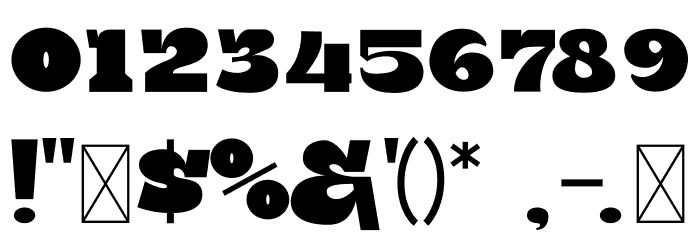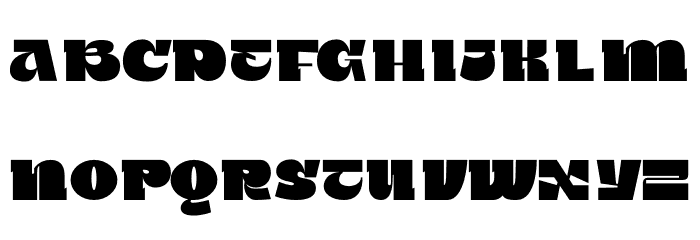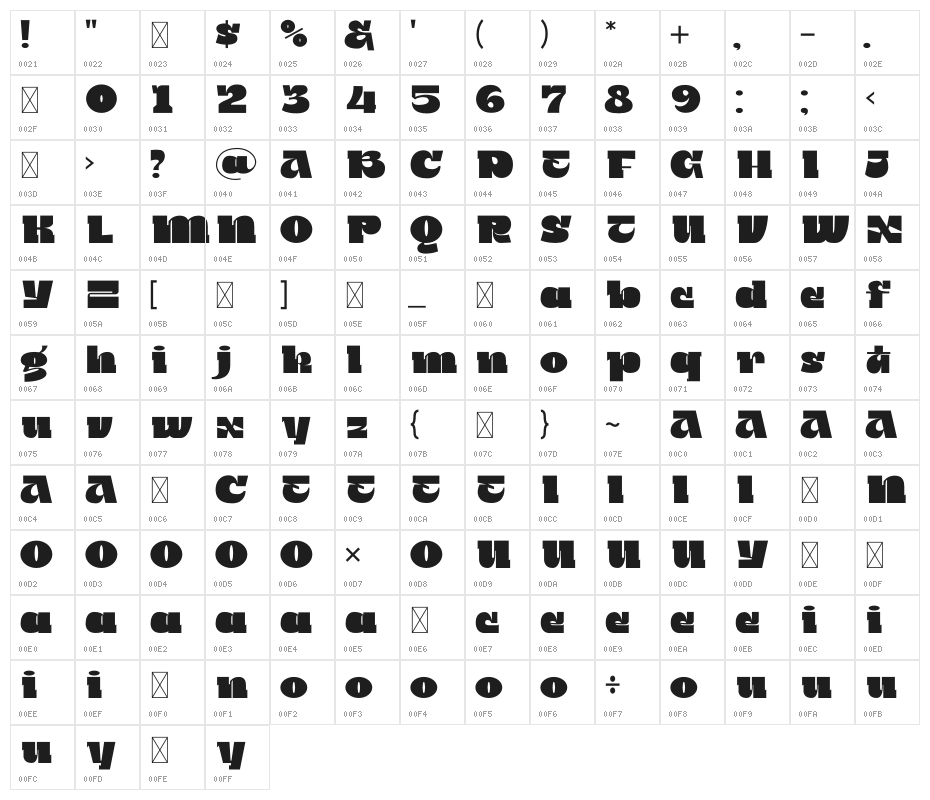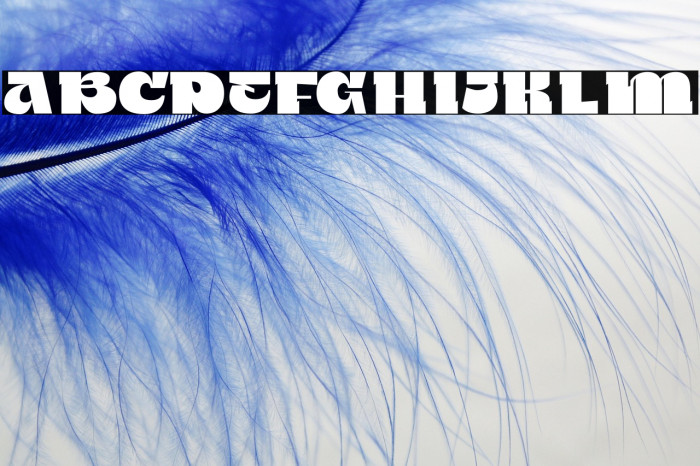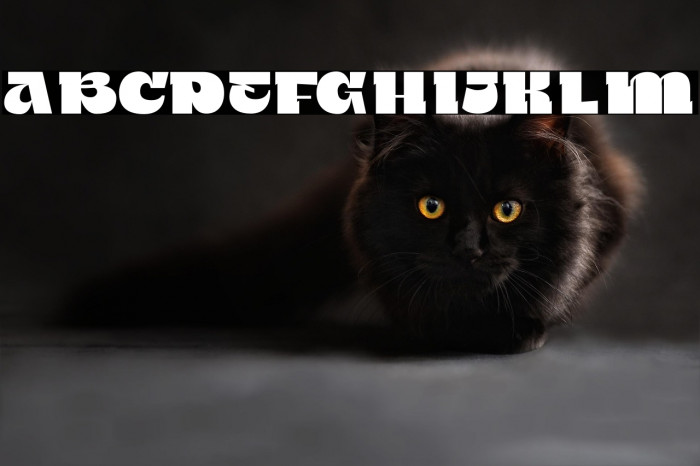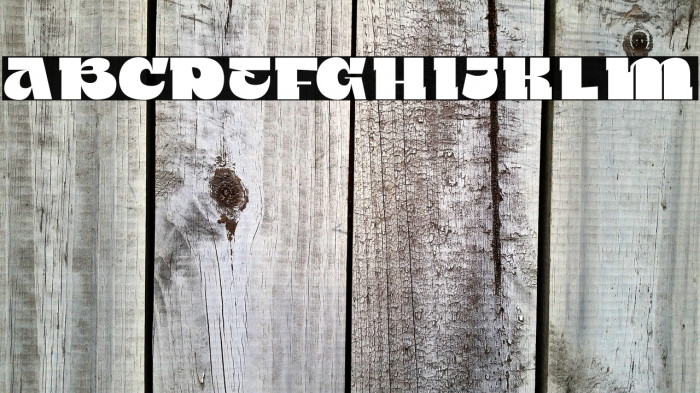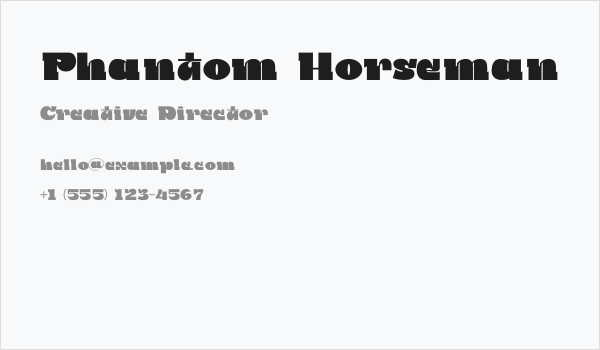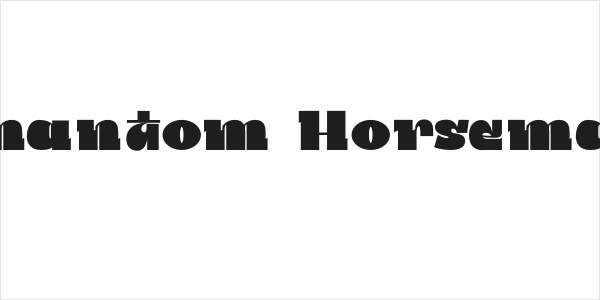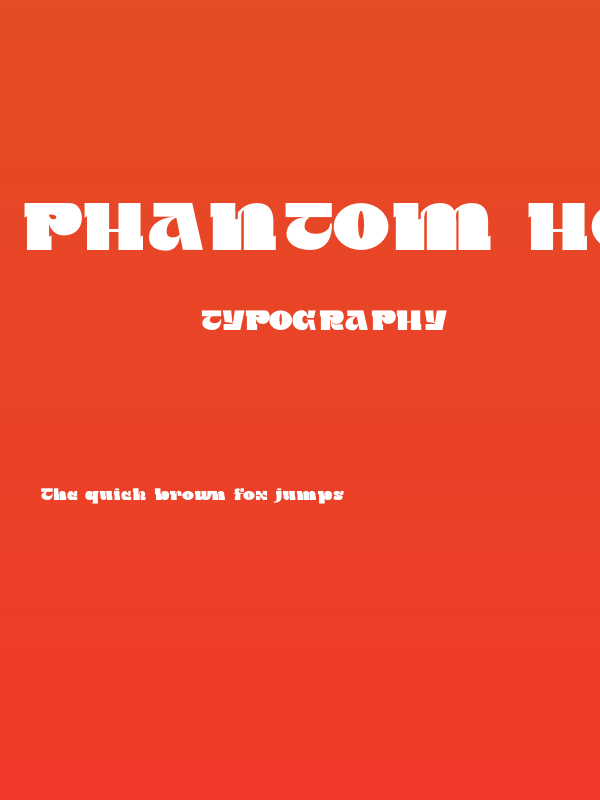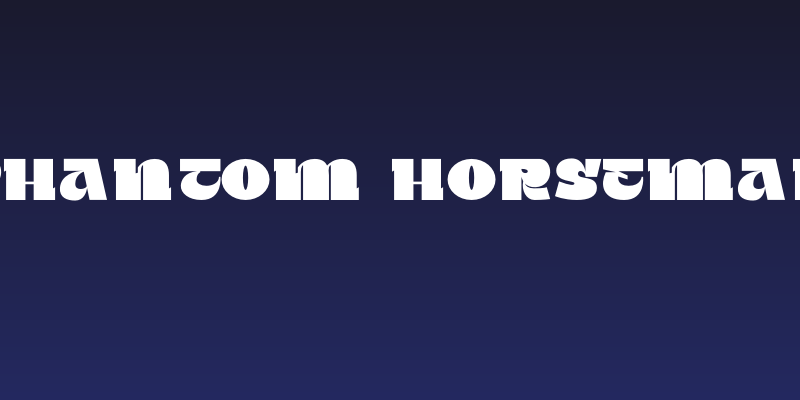
Phantom Horseman Font
Phantom Horseman Description
A bold and decorative font with thick strokes and unique geometric shapes, creating a strong visual impact.
| Overall Style | Decorative |
| Use Case | Headlines, Logos |
| Proposed Projects | Posters, headlines, branding, logos. |